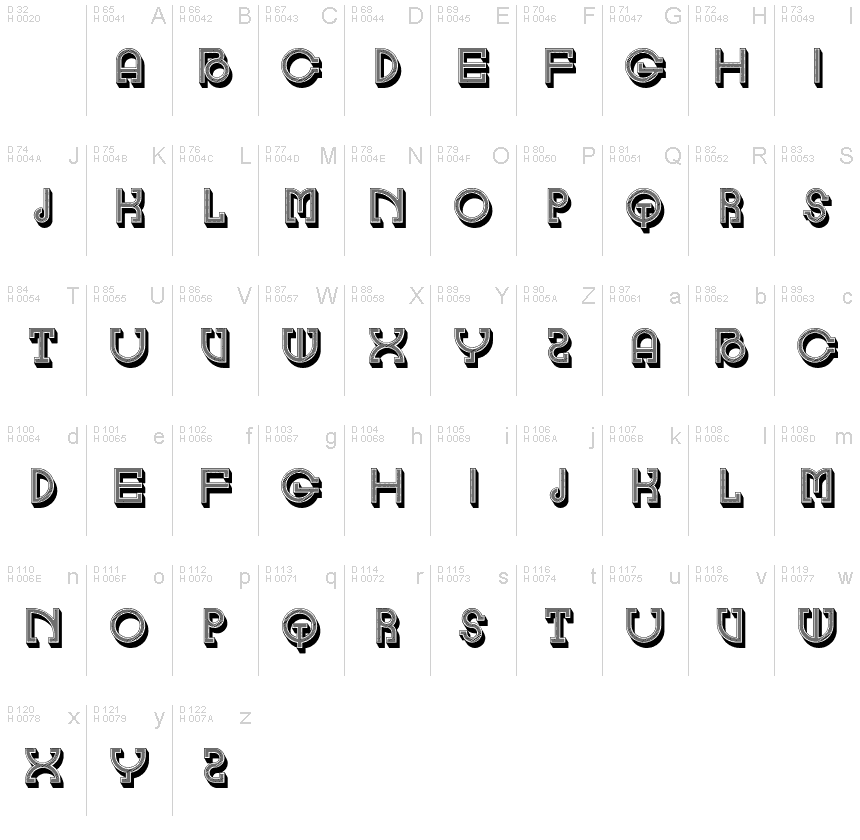
Nagpakita Hollow Regular
Nagpakita Hollow font is a cool 3d display typeface designed by Vladimir Nikolic.
"Nagpakita" comes in Regular, Hollow, Omni and Flat version!